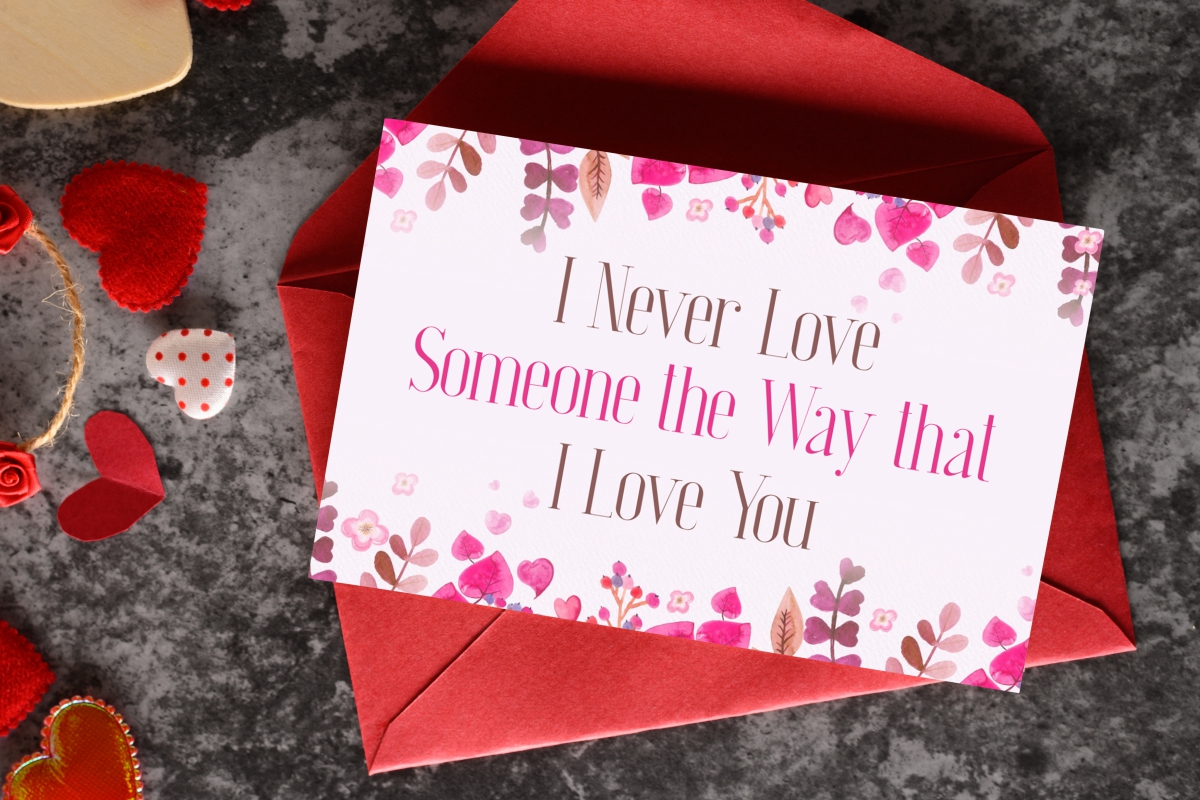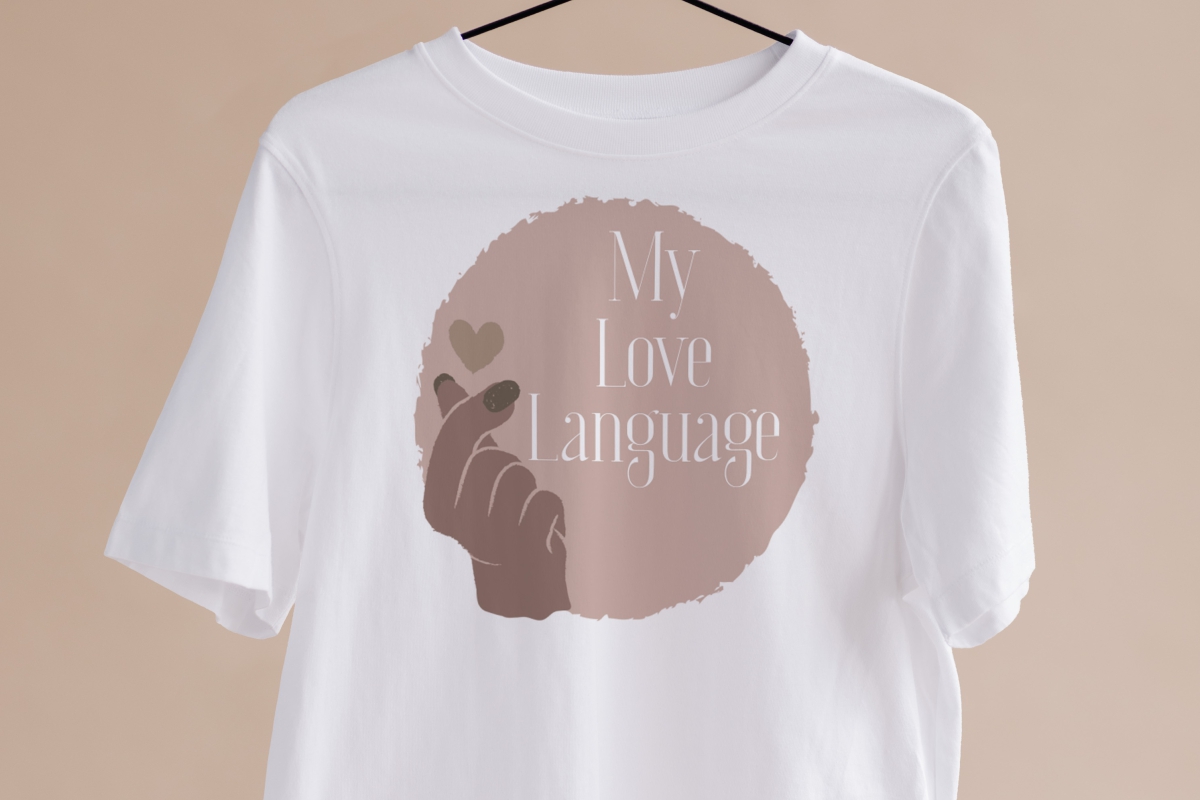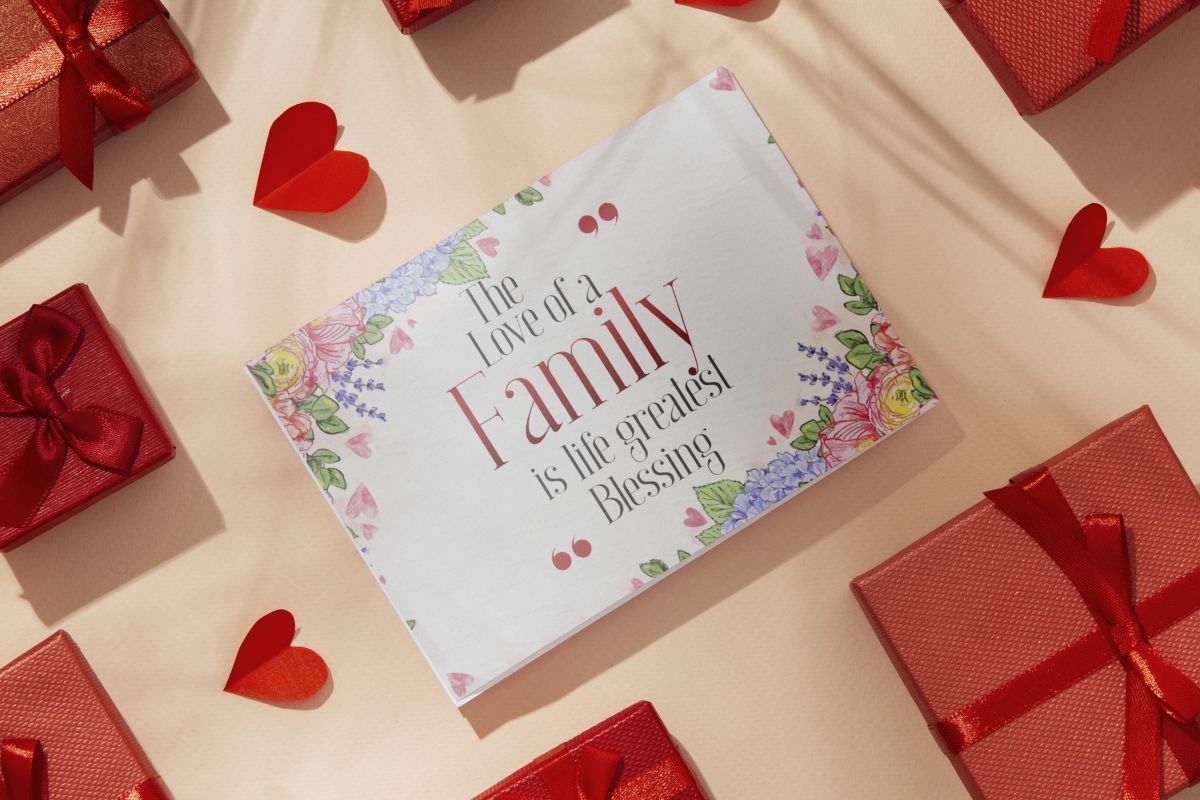
Loving Change Font
Loving Change Serif Font
This is a modern serif font with classy look, created by CalligraphyFonts. This font is suitable for any creative project such as : banner, brand logo, design packaging, greeting card, heading, labels, poster, quotes, stationery, t-shirt, tote bag design, and more.